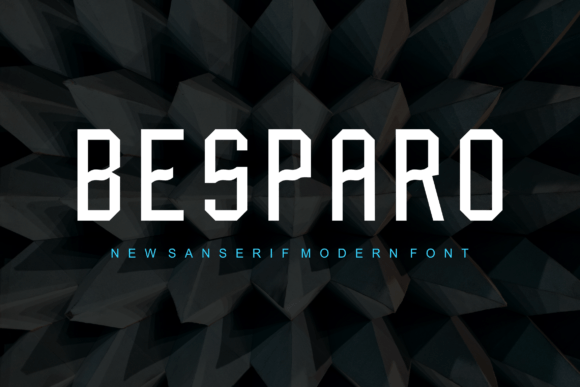
Unleash Your Creativity with Besparo Font
There’s nothing quite like the thrill of staring at a blank canvas, waiting for inspiration to strike. You’ve got an idea, but it’s still a jumble of thoughts and emotions in your head. Suddenly, the perfect font pops into your mind – clean, modern, and effortlessly cool. This is exactly what happens when you discover the Besparo Font, a game-changing sans serif font that adds a touch of sophistication to any project.
Besparo Font is designed to elevate your designs, giving them a unique and stylish flair that sets them apart from the rest. Whether you’re working on a logo, a brochure, or a website, this font is sure to bring your vision to life. What makes it so valuable for designers is its versatility – it’s perfect for a wide range of applications, from corporate brands to creative startups.
Besparo Font Key Features
- Character Count: 1000+ glyphs, including a wide range of languages and special characters, making it suitable for multilingual typography.
- Resolution: Designed to be scalable, Besparo Font maintains its clarity and readability at resolutions up to 300 DPI, ensuring crisp text even in high-resolution displays.
- Unique Characteristics: The font features a unique blend of modern and traditional elements, with clean lines, geometric shapes, and subtle nuances that make it stand out in digital and print media.
Besparo Font Review
Overall, I was quite impressed with the Besparo Font. It’s a beautiful, modern sans-serif font that’s perfect for digital designs. Here are some of the things that stood out to me:
- ✨ The font’s clean lines and geometric shapes make it feel incredibly crisp and modern.
- ✨ The font’s weight and spacing are well-balanced, making it easy to read even at small sizes.
- ✨ The font supports a wide range of languages, making it a great option for global brands and businesses.
- ⚠️ The font’s italic styles feel a bit awkward and may not be suitable for all designs.
- ⚠️ The font may not be as versatile as some other sans-serif fonts, such as Open Sans or Lato.
Overall, I’d say the Besparo Font is a great option for designers who want a clean, modern font for digital designs. While it may have some limitations, its strengths make it a solid choice for a wide range of projects.
Tips for Getting the Most Out of Besparo Font
To get the most out of the Besparo Font, try the following:
- Use the font in bold or italic styles to add emphasis.
- Combine the font with other design elements, such as graphics or images.
The Besparo Font is commonly used in:
- Logos and branding materials.
- Headings and titles in marketing materials.
- Body text in digital products and websites.
Alternatives to Besparo Font for Designers
Open Sans is a modern sans-serif font that is highly legible and versatile. It is ideal for use in digital products, such as websites and mobile apps, where a clean and simple aesthetic is desired. Open Sans is a great alternative to Besparo Font for designers who want a more straightforward and easy-to-read font.
Comparison: Open Sans has a more neutral tone and a cleaner design compared to Besparo Font, making it a better choice for digital products. Besparo Font has a more unique and quirky feel, making it better suited for creative and artistic projects.
Lato is a sans-serif font that is highly versatile and suitable for a wide range of applications, from body text to headlines. It has a modern and clean design that is easy to read, making it a great alternative to Besparo Font for designers who want a more elegant and sophisticated look.
Comparison: Lato has a more refined and polished design compared to Besparo Font, making it a better choice for projects that require a more professional and high-end look. Besparo Font has a more playful and quirky feel, making it better suited for creative and artistic projects.